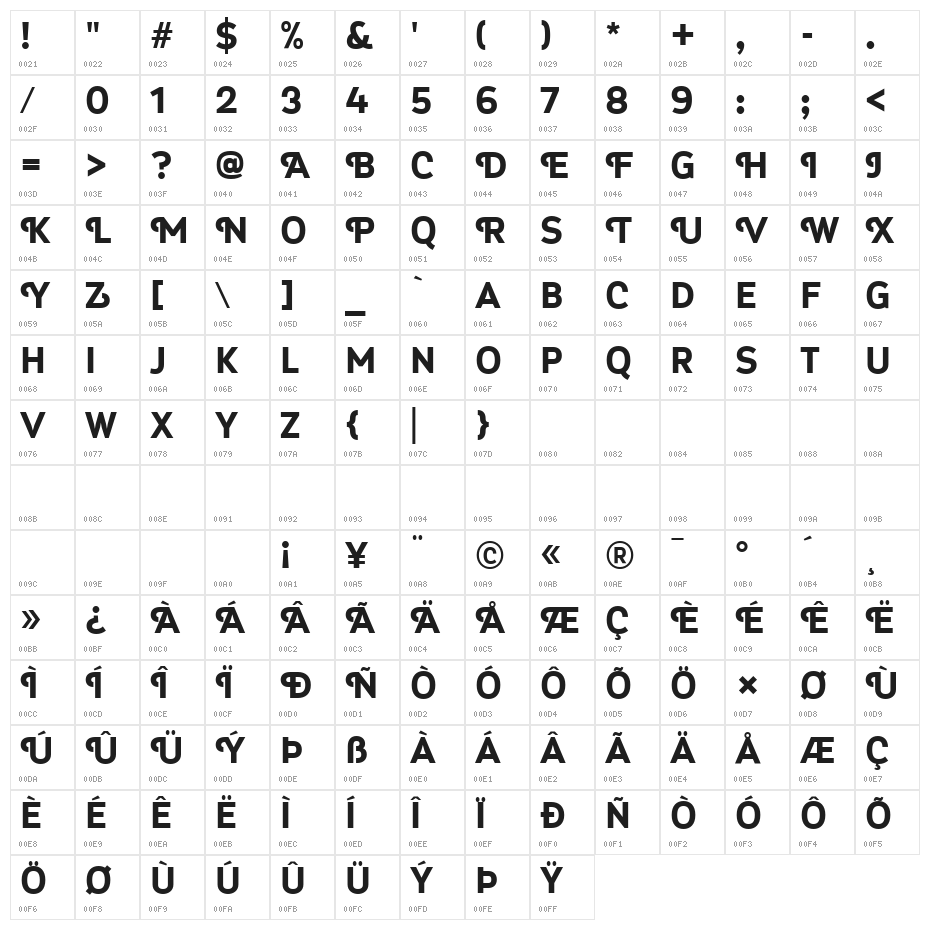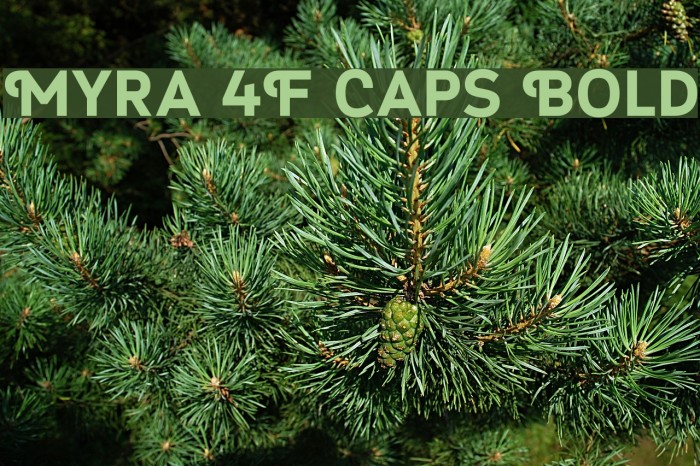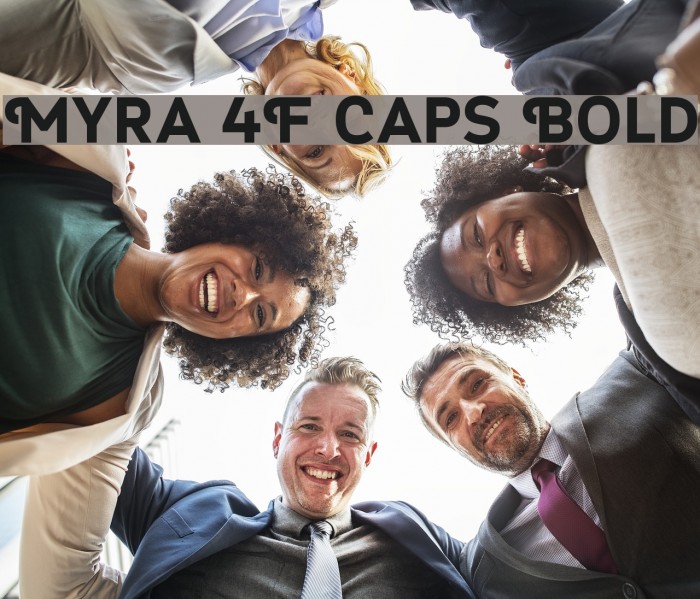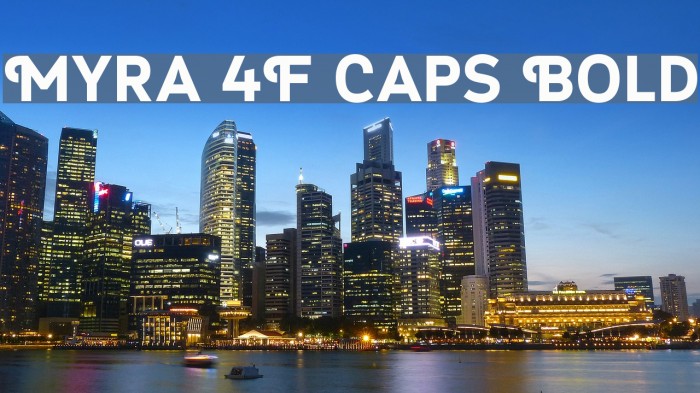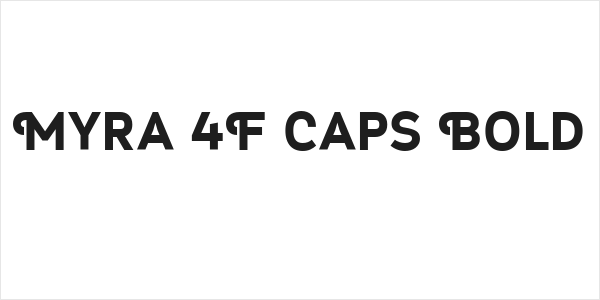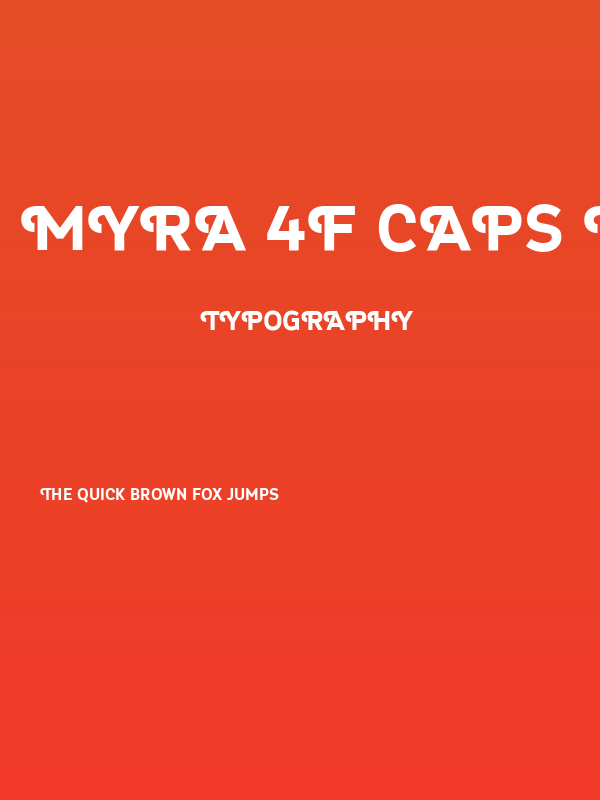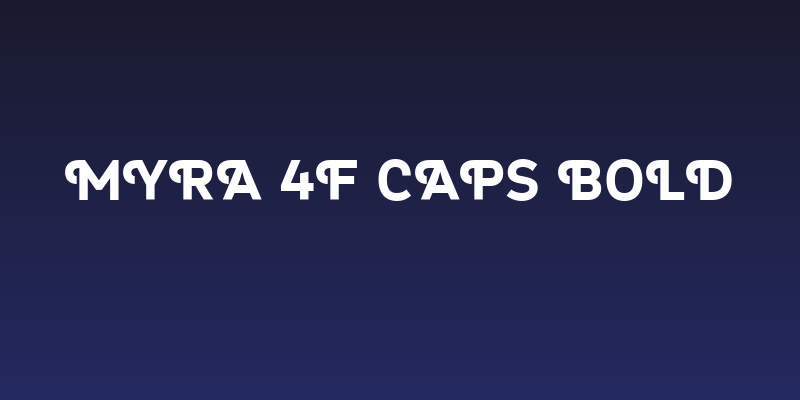
Myra 4F Caps Bold Font
Myra 4F Caps Bold Description
This bold, sans-serif font features a modern and robust design, characterized by its thick strokes and uniform weight. The uppercase letters are distinct with a slight geometric influence, providing a clean and professional look. The numerals are clear and easy to read, making them suitable for various applications. The special characters maintain the same boldness, ensuring consistency across different uses. The font's overall appearance is strong and assertive, making it ideal for attention-grabbing headlines and impactful designs.